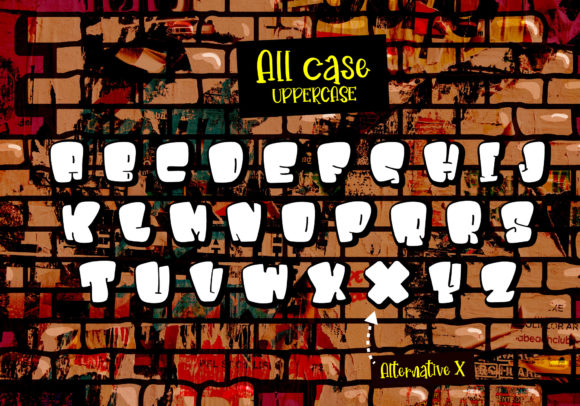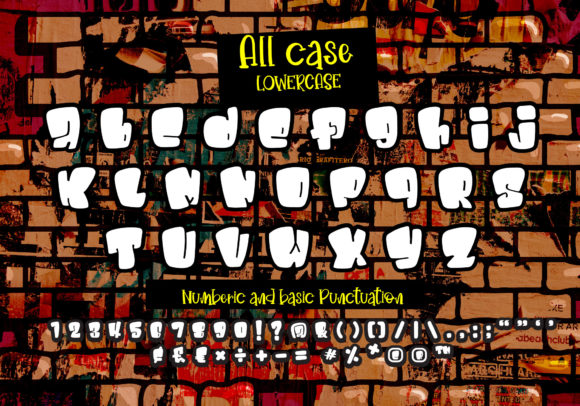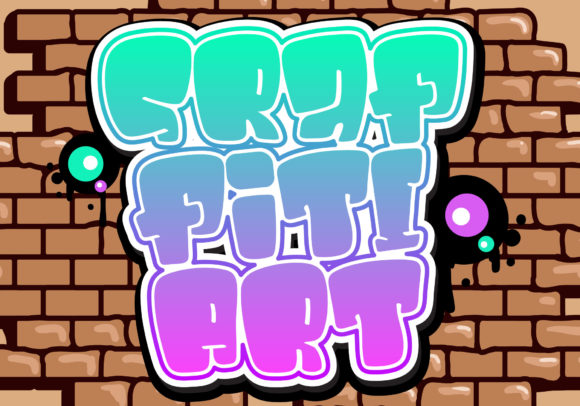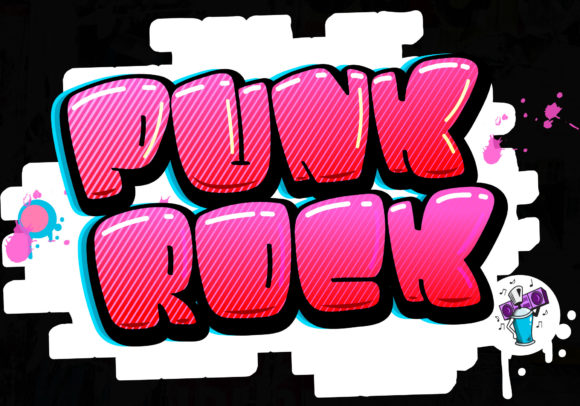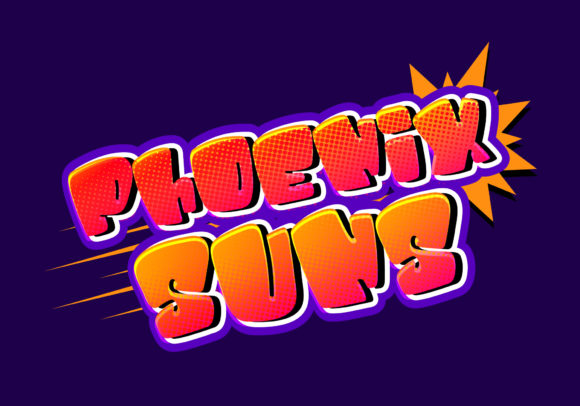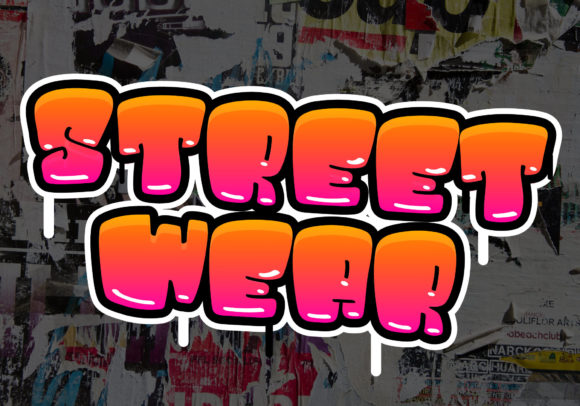
Introducing Exclamation Font: The Ultimate Graffiti-Styled Display Font
Are you tired of using the same old fonts for your creative projects? Look no further! Exclamation Font is here to take your designs to the next level with its graffiti-styled, chunky lettered display font. This playful font is perfect for adding a touch of personality to your work, making it stand out from the crowd.
What is Exclamation Font?
Exclamation Font is a unique and eye-catching font that is designed to make a statement. Its graffiti-styled letters are chunky, bold, and full of character, making it perfect for use in a variety of creative projects. Whether you’re a designer, crafter, or simply someone who loves to express themselves through art, Exclamation Font is sure to become a favorite.
Key Features of Exclamation Font
- Graffiti-styled letters: Exclamation Font features letters that are inspired by graffiti art, with bold lines, bright colors, and a playful vibe.
- Chunky lettering: The font’s chunky lettering makes it perfect for use in display text, such as headings, titles, and captions.
- Playful personality: Exclamation Font has a fun and playful personality that is sure to add a touch of whimsy to your designs.
- Easy to read: Despite its bold and chunky design, Exclamation Font is surprisingly easy to read, making it perfect for use in a variety of contexts.
How to Use Exclamation Font
Exclamation Font is perfect for use in a variety of creative projects, including:
- Graphic design: Use Exclamation Font to add a touch of personality to your graphic designs, such as brochures, flyers, and posters.
- Crafting: Add Exclamation Font to your crafting projects, such as scrapbooking, card making, and DIY signs.
- Digital art: Use Exclamation Font to add a bold and playful touch to your digital art, such as illustrations, paintings, and collages.
- Social media: Use Exclamation Font to create eye-catching social media graphics, such as Facebook posts, Instagram stories, and Twitter headers.
Benefits of Using Exclamation Font
There are many benefits to using Exclamation Font in your creative projects. Here are just a few:
- Stand out from the crowd: Exclamation Font is a unique and eye-catching font that is sure to make your designs stand out from the crowd.
- Add personality to your designs: Exclamation Font has a playful and fun personality that is sure to add a touch of whimsy to your designs.
- Versatile: Exclamation Font can be used in a variety of contexts, from graphic design to crafting to digital art.
In conclusion, Exclamation Font is a unique and eye-catching font that is perfect for adding a touch of personality to your creative projects. With its graffiti-styled letters, chunky lettering, and playful personality, Exclamation Font is sure to become a favorite among designers, crafters, and artists. So why wait? Download Exclamation Font today and start making your designs stand out!